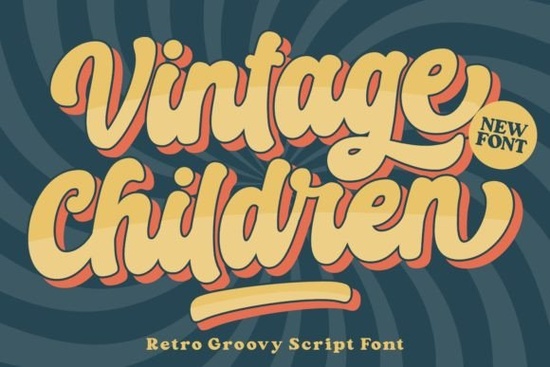
Vintage Children Font is a standout choice for anyone looking to add a retro flair to their creative projects. This groovy script font brings a sense of fun and nostalgia, making it ideal for designs that need a playful or vintage touch. Whether you're working on party invitations, album covers, or promotional materials, the bold, flowing strokes and exaggerated curves of this font can help bring your vision to life.
Designed with a free-spirited vibe, Vintage Children Font captures the essence of hand-drawn lettering from the past. Its fluid and expressive style makes it perfect for retro-themed work, especially when you want to evoke a sense of 1960s or 1970s aesthetics. The unique flourishes and stylistic elements add character, giving each letter a distinct personality that stands out in any design.
One of the key features of Vintage Children Font is its ability to convey energy and movement through its design. The letters flow smoothly, creating a dynamic visual effect that can enhance the overall look of your project. This font works well with both digital and print media, making it a versatile option for designers, crafters, and small business owners.
Its retro appeal also makes it a great fit for creative hobbyists who enjoy experimenting with different styles. If you're looking to add a nostalgic feel to your work, this font offers a range of possibilities without being too overwhelming. It’s easy to use and compatible with most design software, so you can start incorporating it into your projects right away.
Vintage Children Font is particularly effective for projects that aim to capture a vintage or retro atmosphere. For example, it can be used for designing music album covers, where the font's playful style complements the artistic and expressive nature of the artwork. It also works well for event invitations, especially for parties or themed gatherings that want to create a nostalgic or funky vibe.
If you're a print-on-demand seller, this font could be a valuable addition to your collection. It adds a unique touch to t-shirts, mugs, and other merchandise, helping your products stand out in a competitive market. For small businesses, using this font in logos or promotional materials can give your brand a distinctive and memorable identity.
When using Vintage Children Font, consider the context of your design. Since it has a strong personality, it works best as a headline or accent font rather than for body text. Pairing it with simpler fonts can help balance the overall look and make your design more readable.
Experiment with different sizes and colors to see how the font interacts with your layout. Adding subtle shadows or gradients can enhance its visual impact without overpowering the design. Always test the font in different formats to ensure it looks good on both digital and printed materials.
Vintage Children Font is a great choice for anyone looking to add a retro, fun, and expressive element to their designs. Its unique style and versatility make it suitable for a wide range of creative applications. Whether you're a designer, crafter, or small business owner, this font can help you achieve a nostalgic or vibrant look that resonates with your audience.
Consider how this font can fit into your current projects or inspire new ones. With its bold and flowing characteristics, it has the potential to elevate your work in a way that feels both authentic and stylish. Don’t hesitate to experiment and find the perfect way to incorporate it into your creative process.